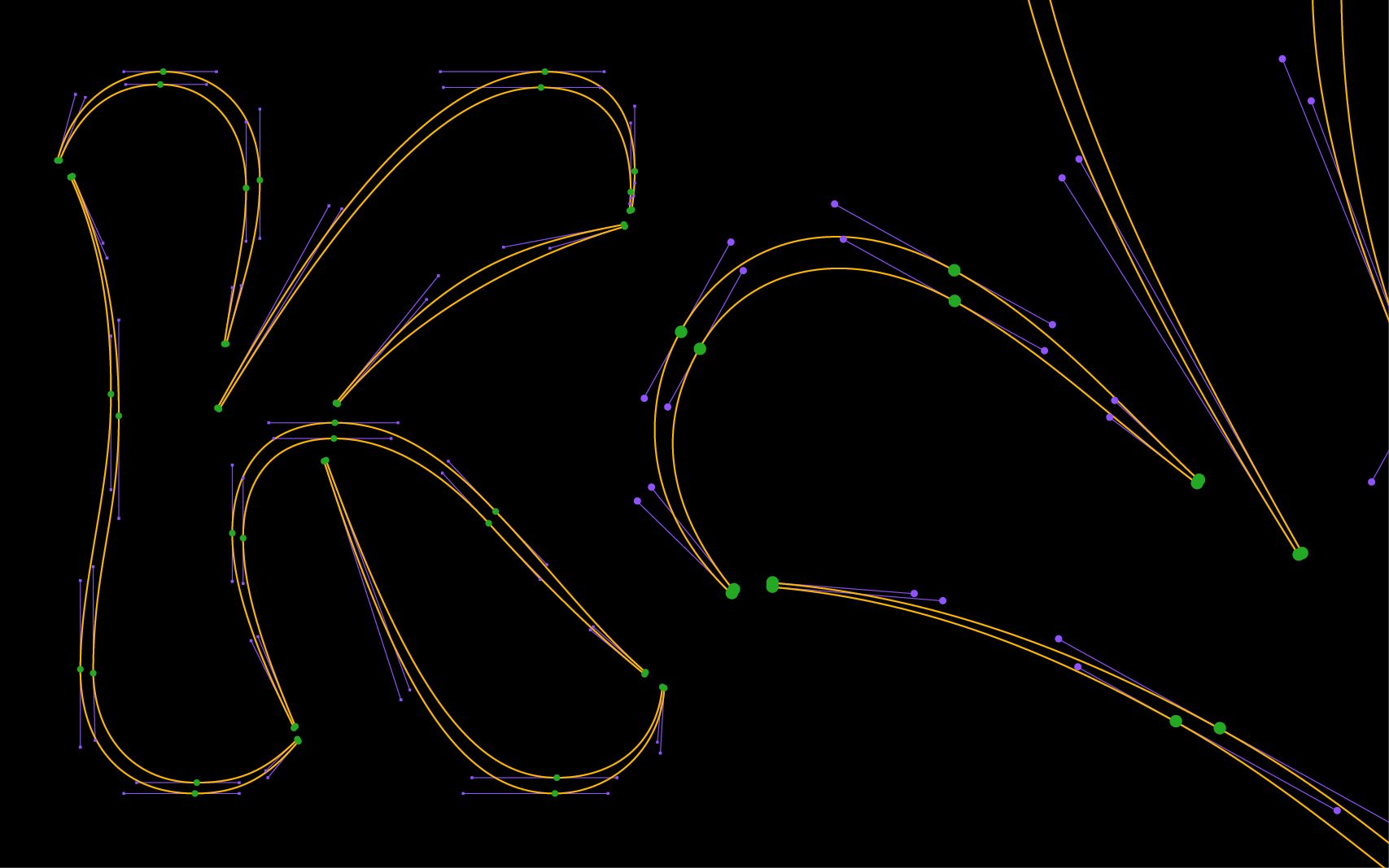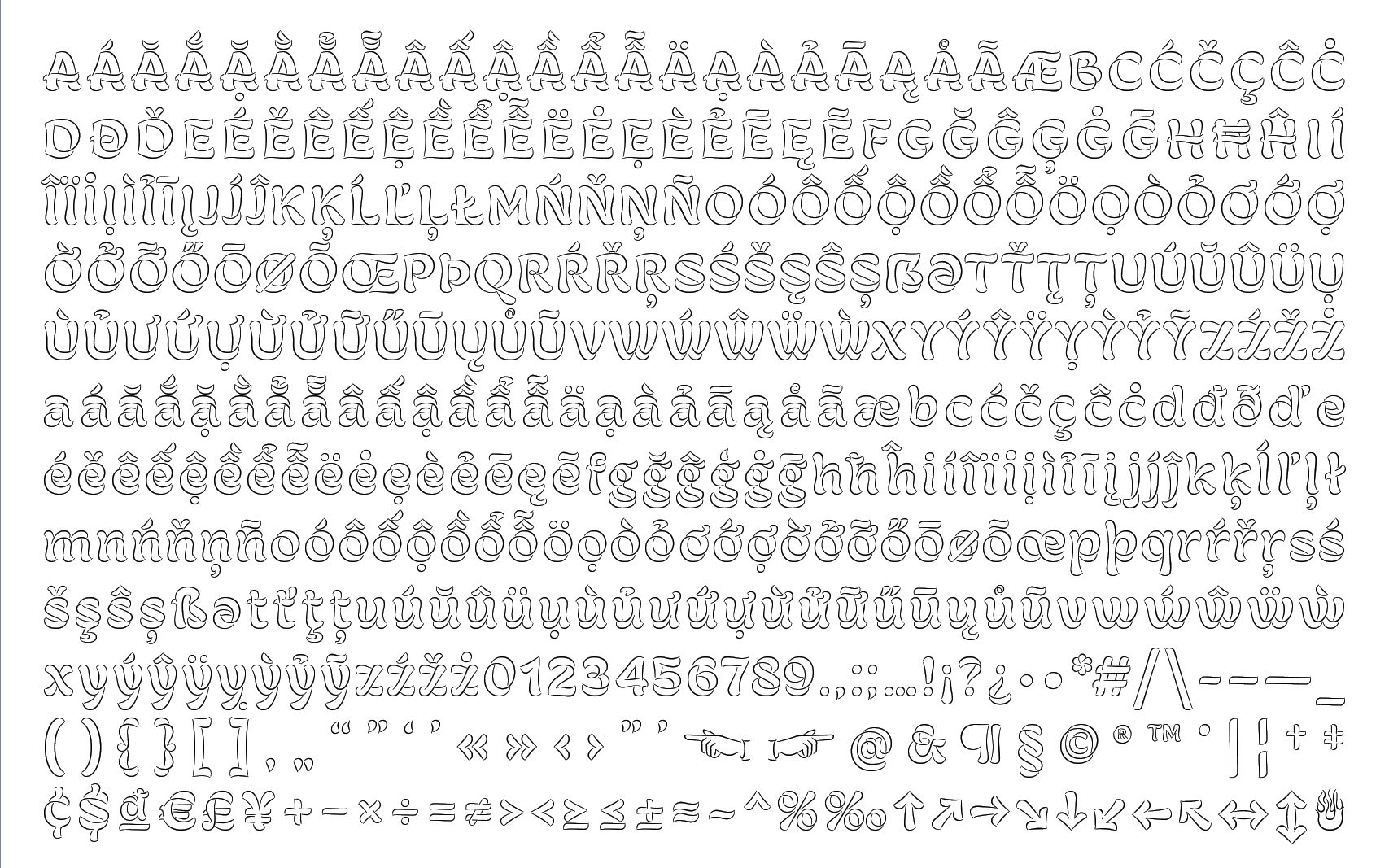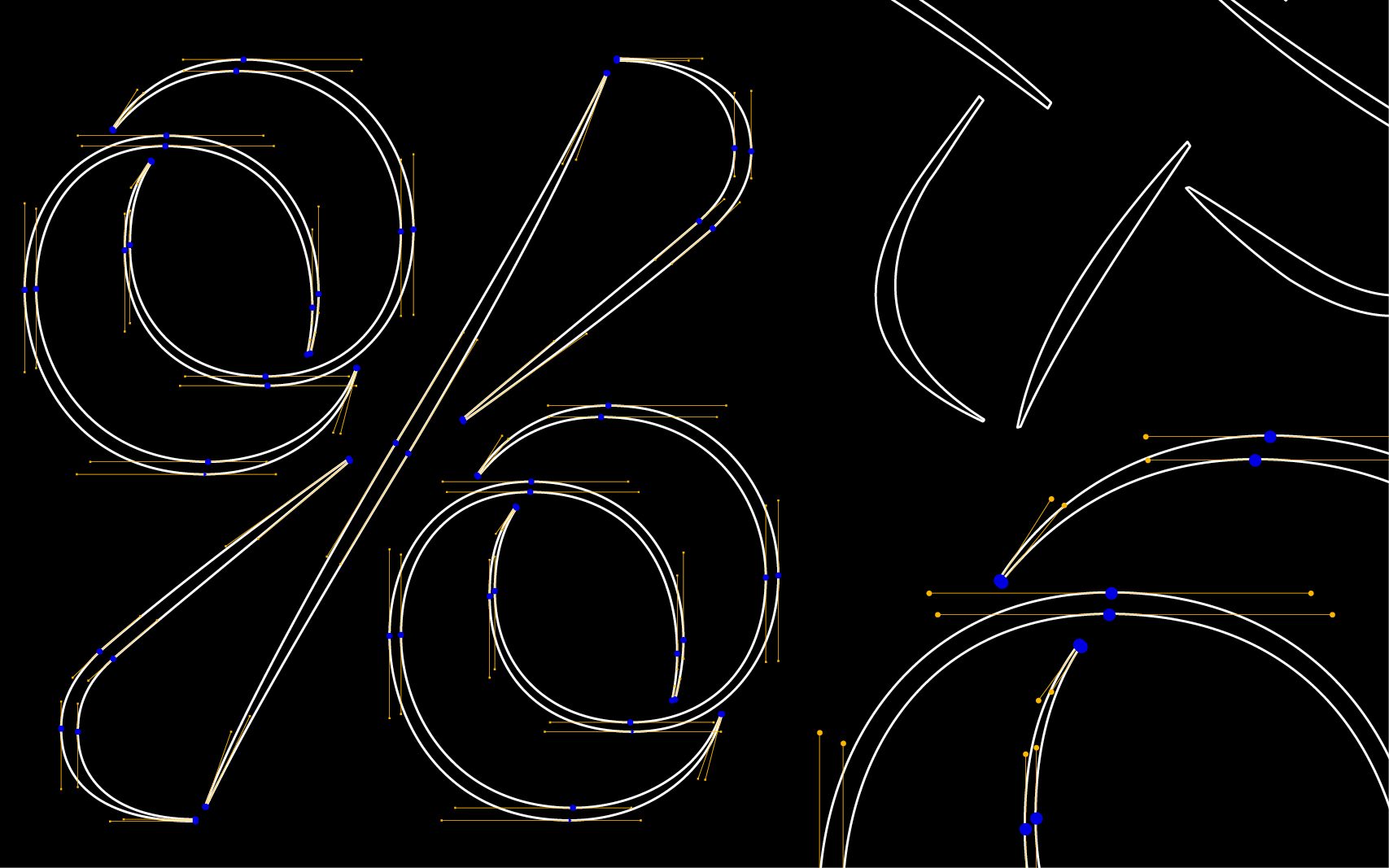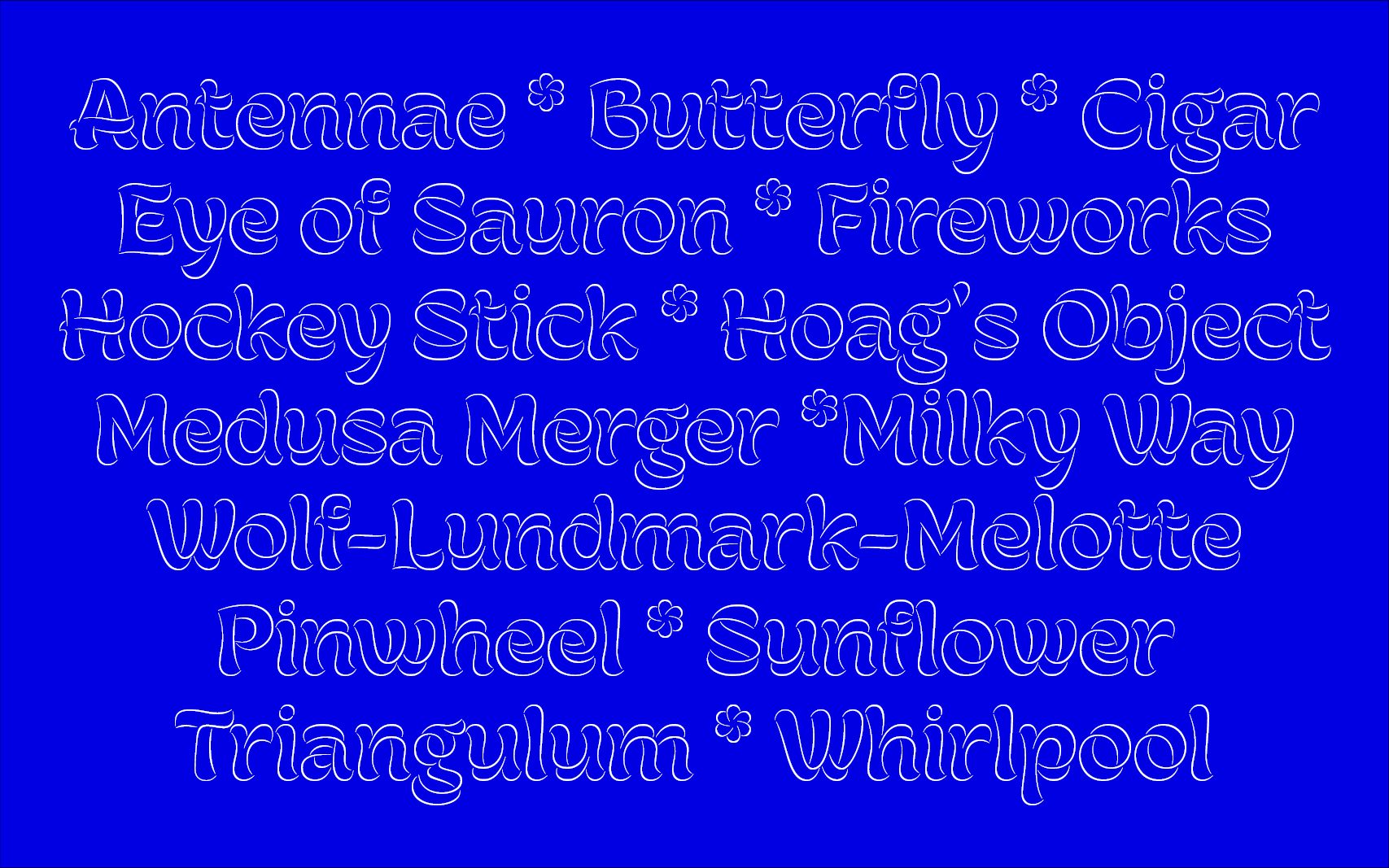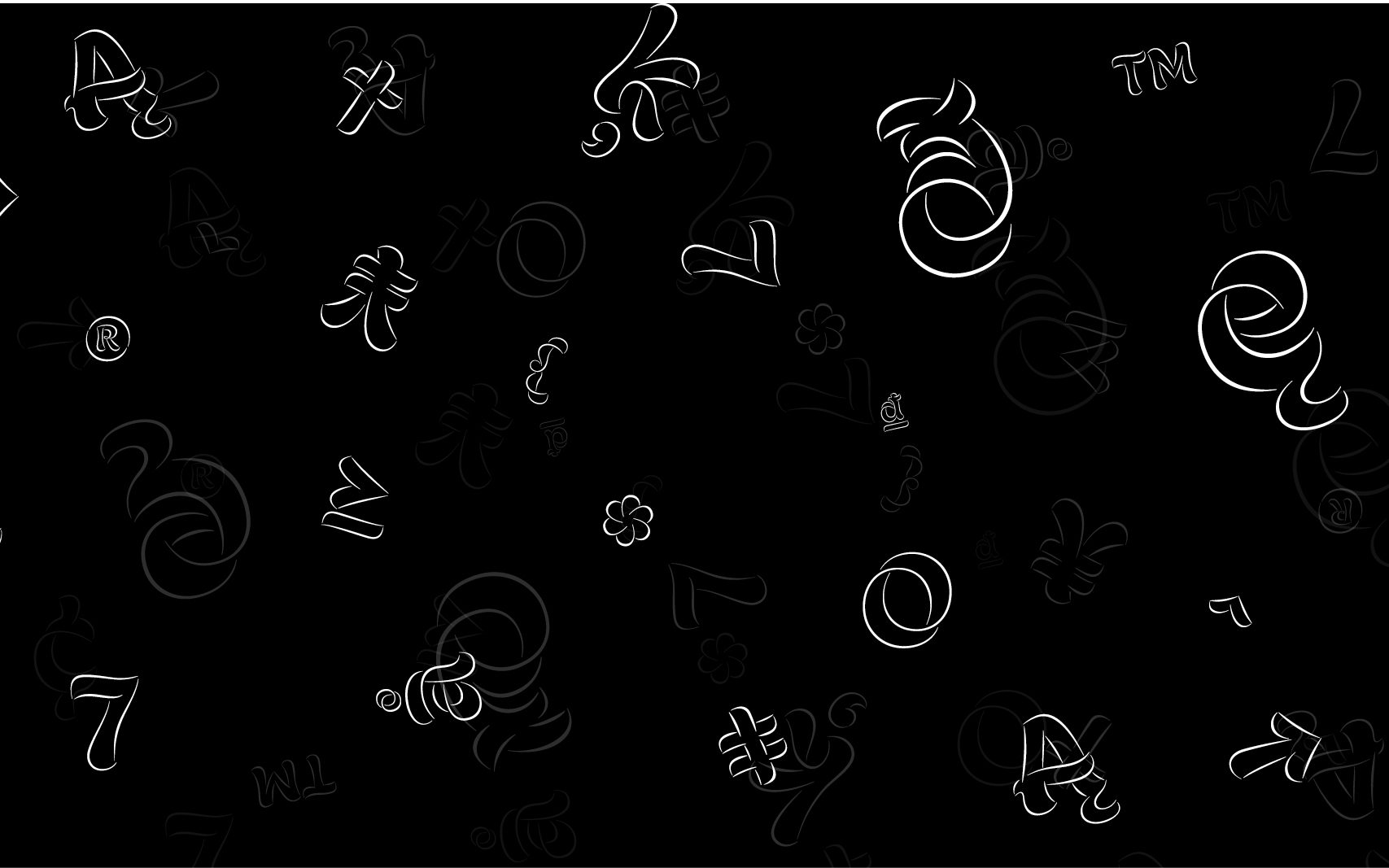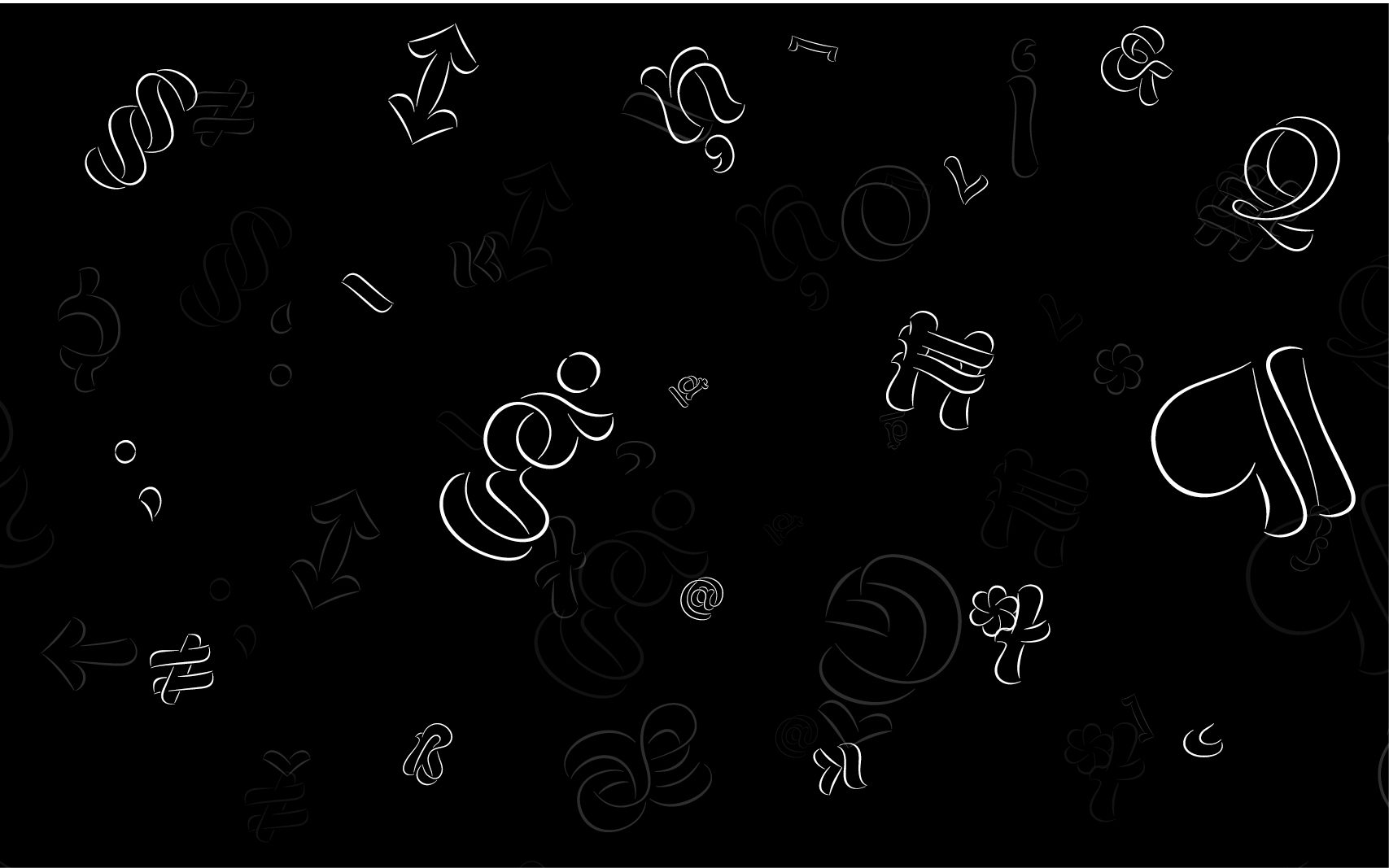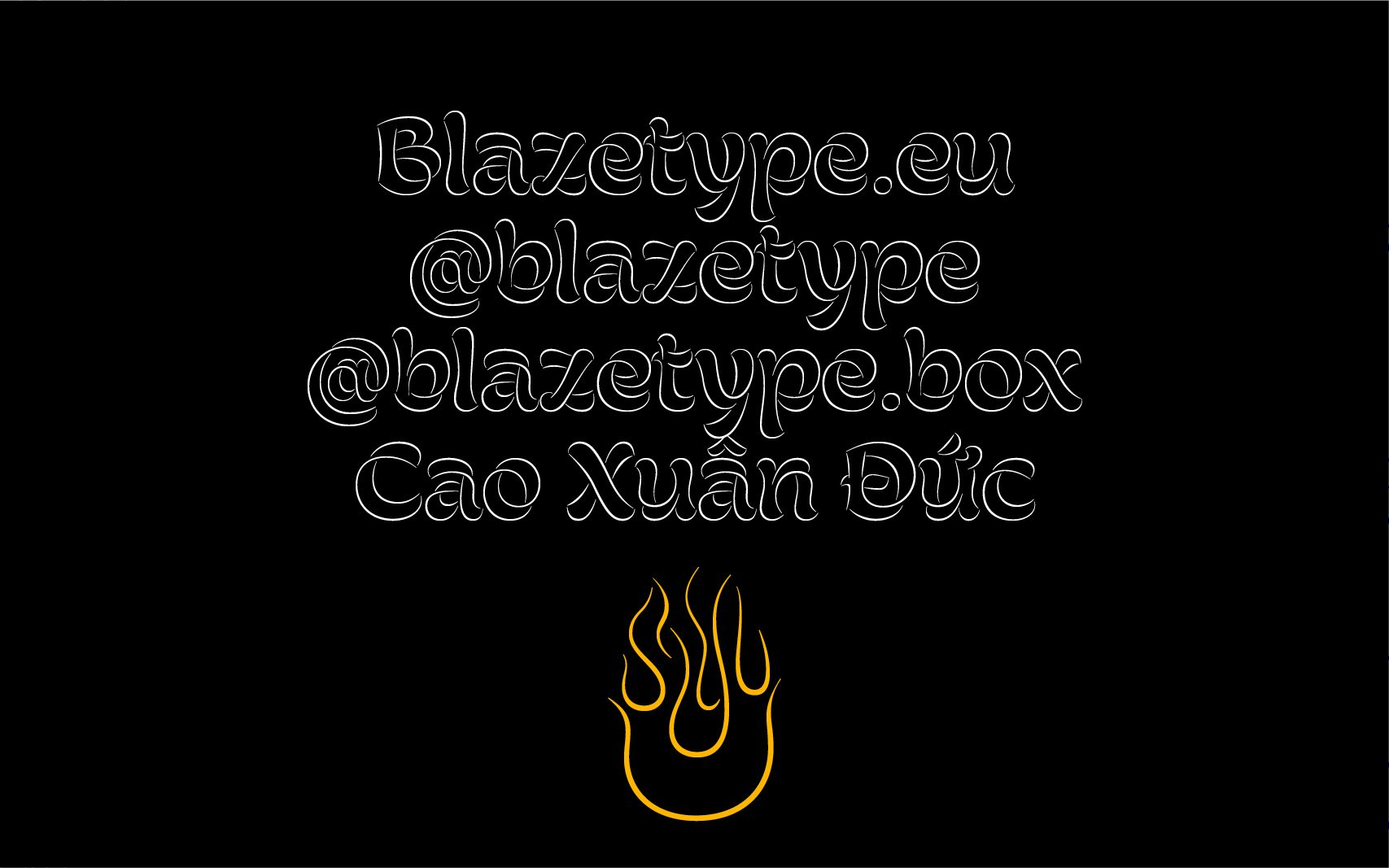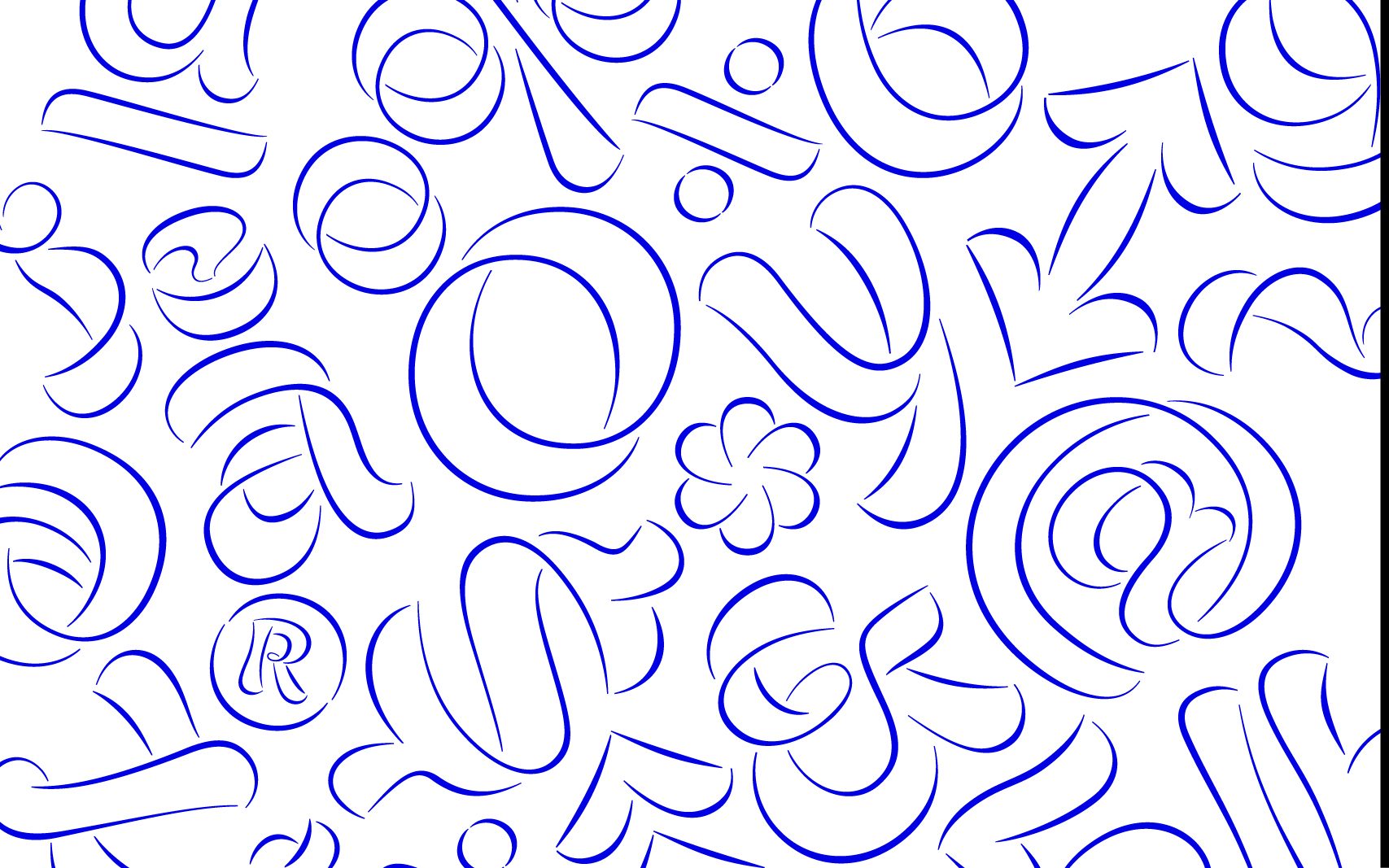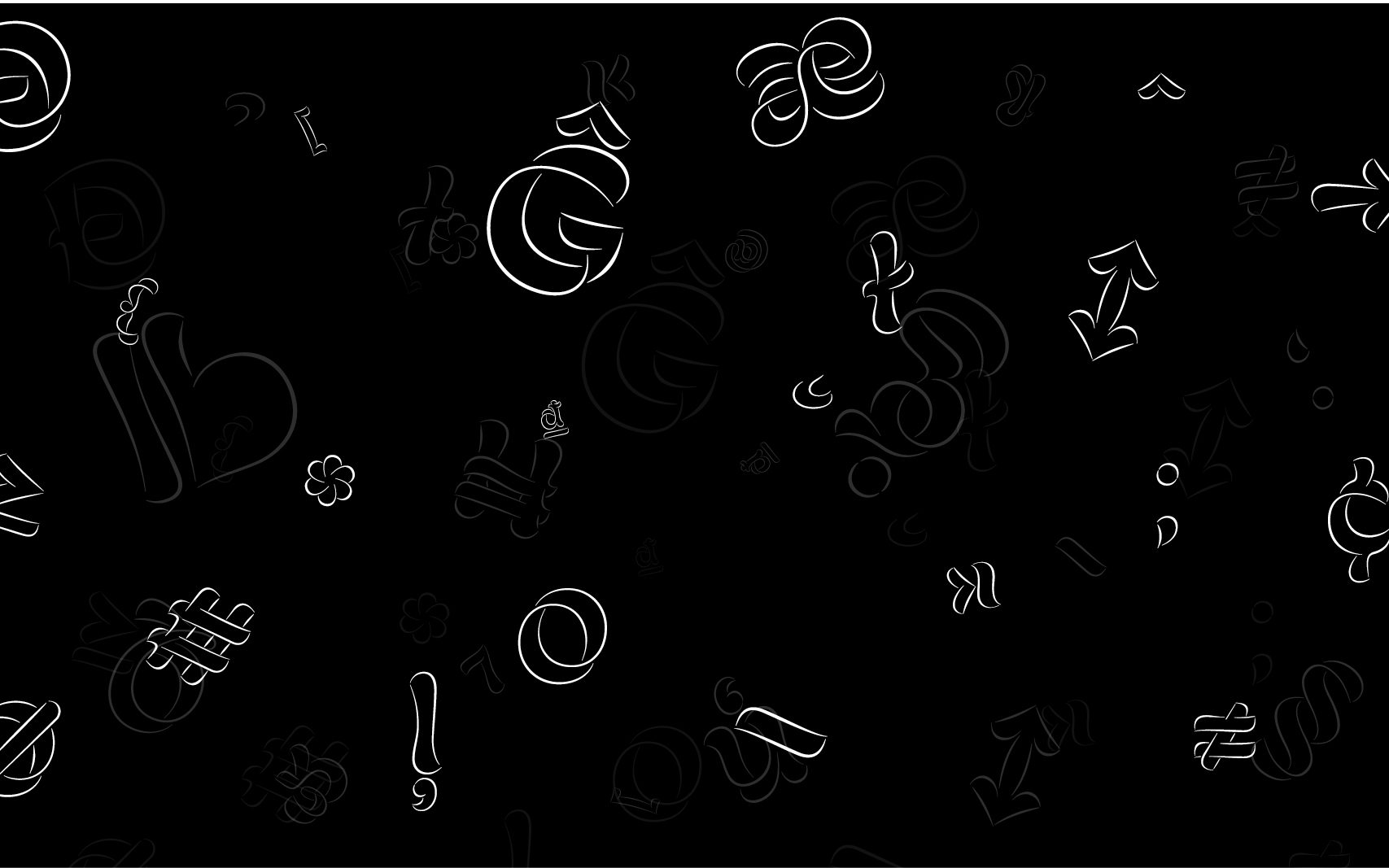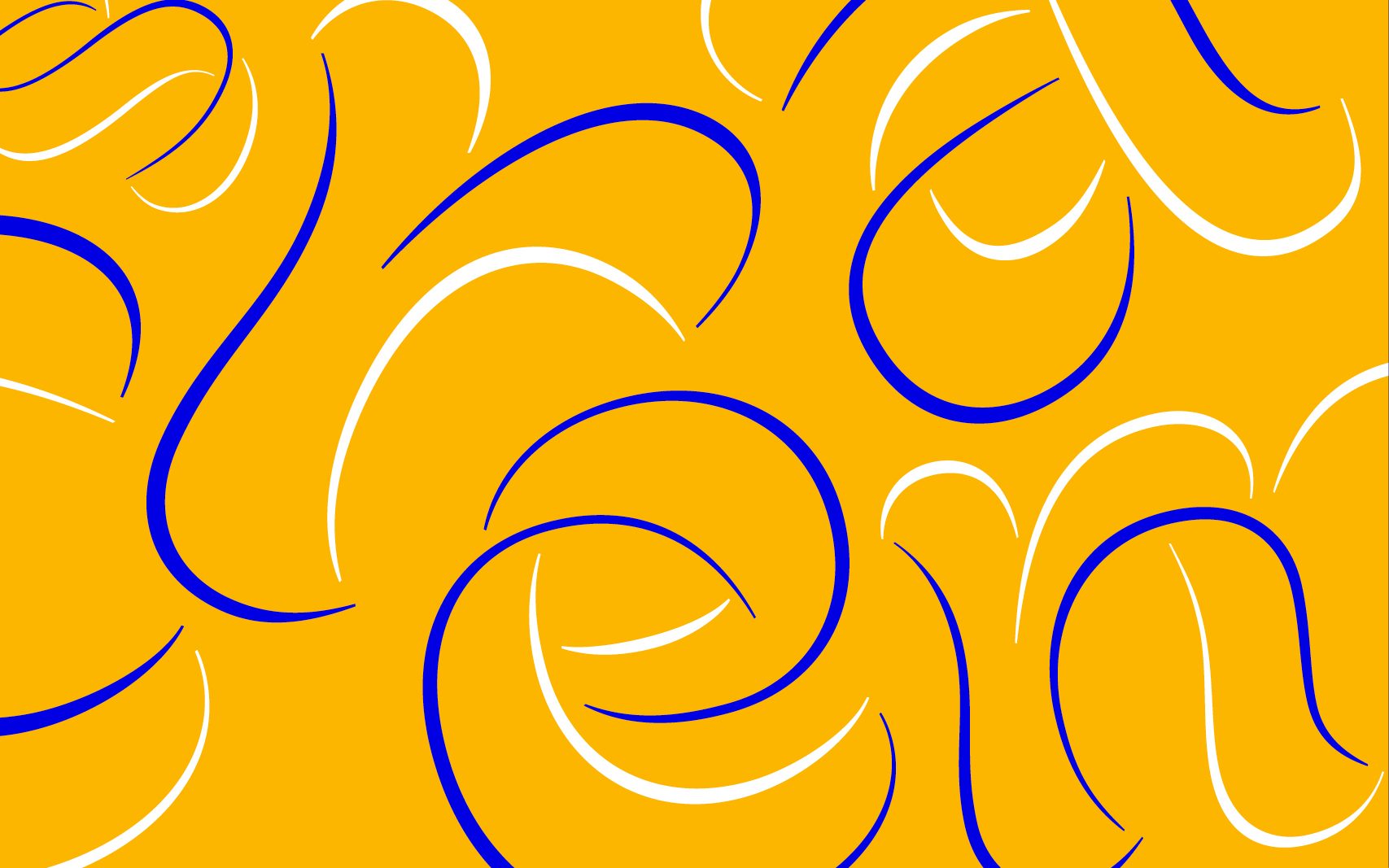
Swirl
Swirl Display is a graceful outline display typeface designed by Duc during his study at Type West. The typeface is the result of the study on the flat brush's expressiveness: how the twists and turns of such a physical tool can create a dynamic and humanistic texture for a typeface. The letterforms are rounded, with tapered strokes in the middle and flared ends. Swirl was initially designed in solid form, which was later reduced to its bare, skeletal and suggestive outlines, thin and graceful. This design change makes the font bold yet airy, soft yet sharp, full yet hungry for more.
Swirl Display is a great choice for typesetting big headlines, editorial, and packaging where you want a touch of grace or elegance for the design. Its smooth outlines will do wonders especially when used as a display font family on posters, book covers and videos headlines.
Latin European And Vietnamese